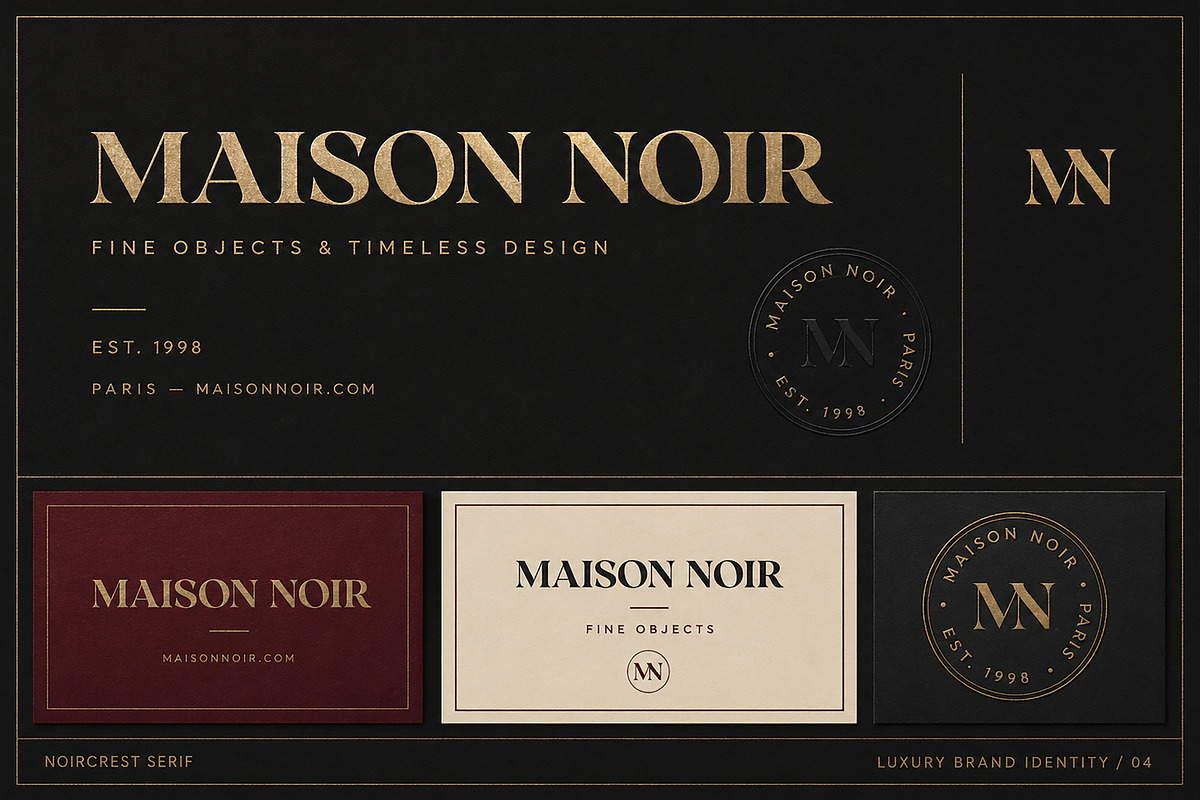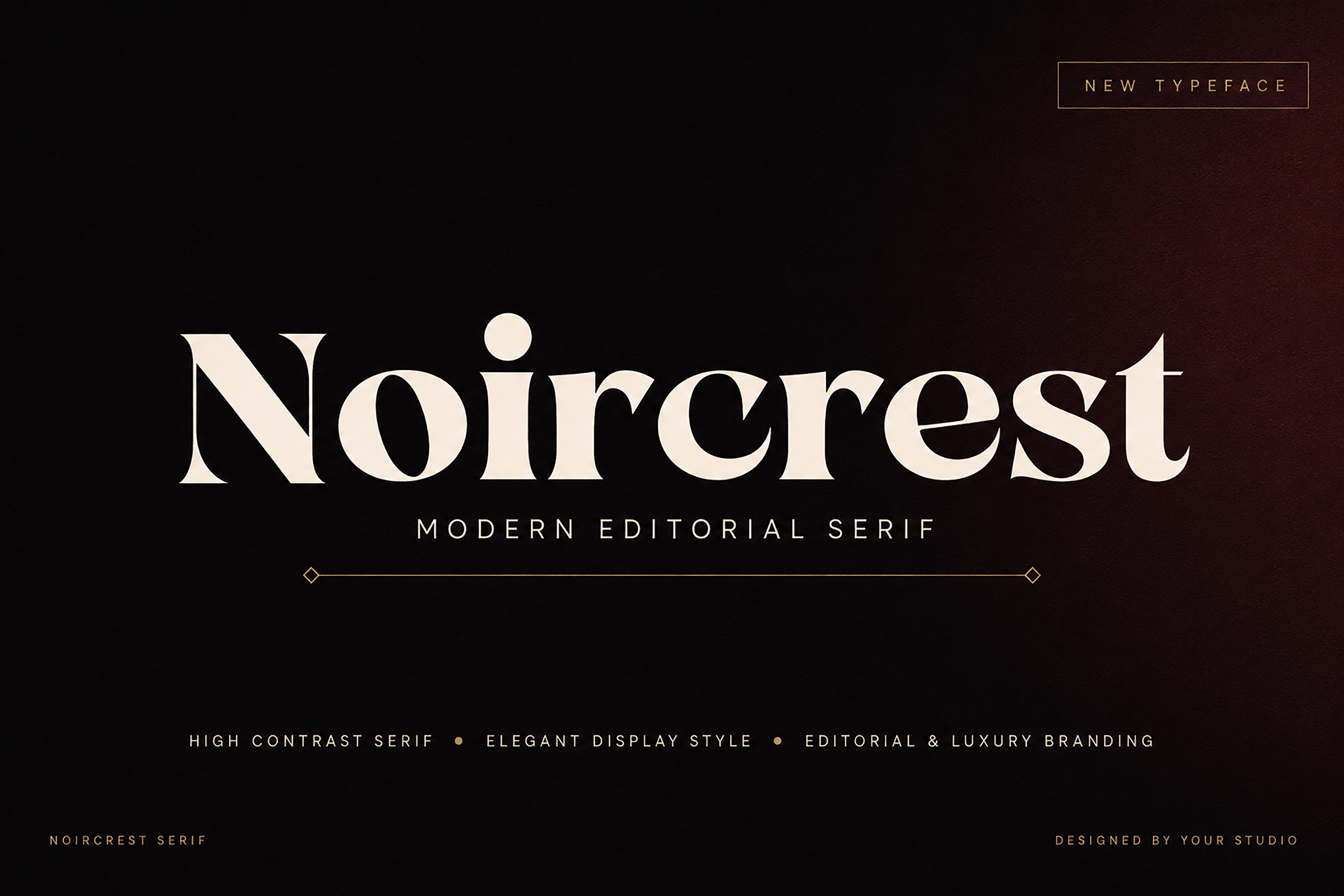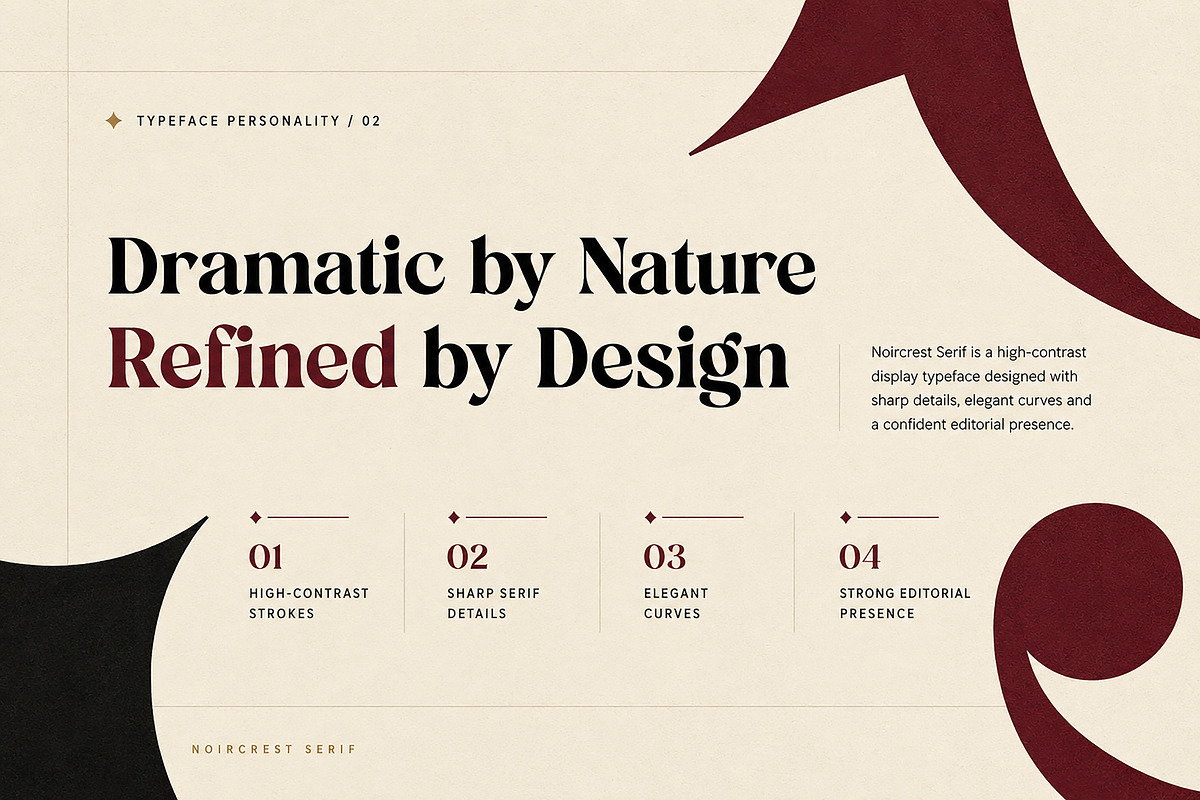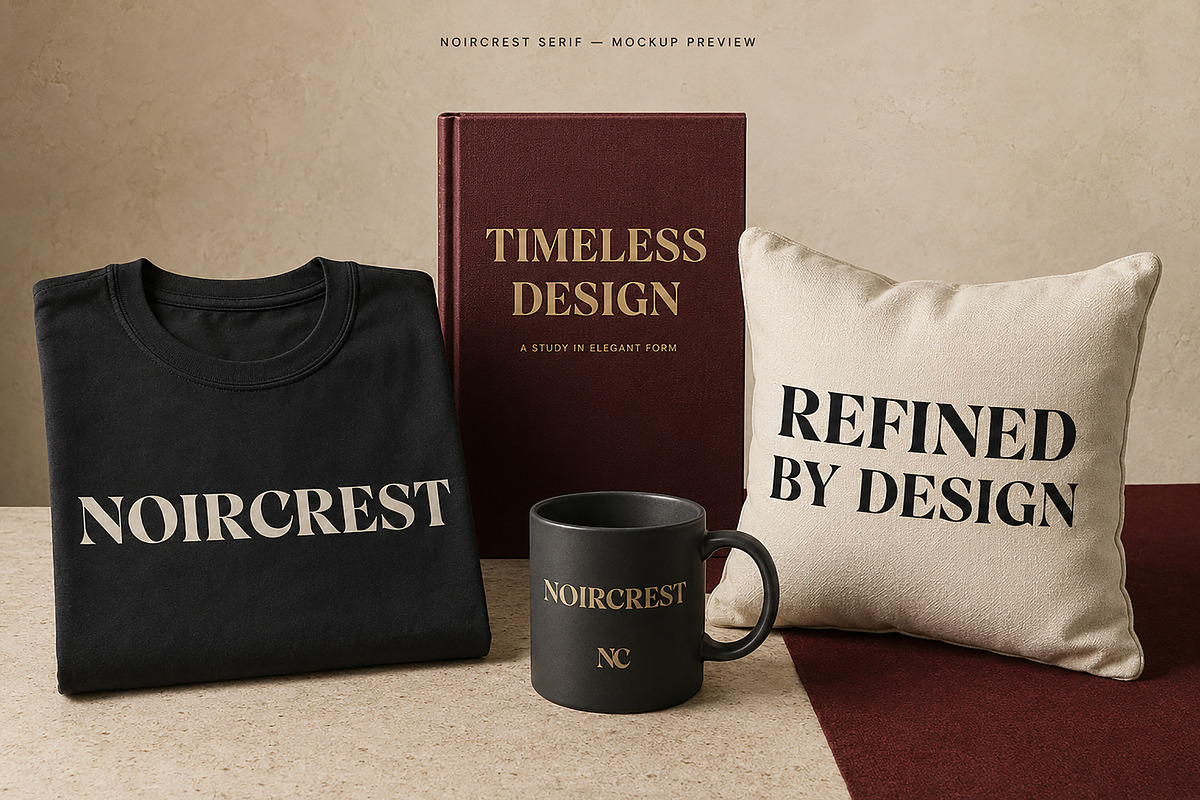
Noircrest Serif – Luxury Typeface
Noircrest Serif – Luxury Editorial Typeface
Short Description
Noircrest Serif is an elegant high-contrast display typeface featuring sharp serifs, refined curves, and a confident editorial character. Designed for luxury branding, fashion titles, magazines, packaging, logos, and sophisticated creative projects.
Introducing Noircrest Serif, a refined display typeface created to bring elegance, drama, and a premium personality to your designs.
Its striking high-contrast strokes, sharp serif details, and graceful curves create a distinctive visual style inspired by luxury fashion and modern editorial design. Noircrest works beautifully in large headlines, sophisticated wordmarks, magazine covers, boutique identities, packaging, invitations, and advertising campaigns.
Whether you are developing a luxury brand, creating an elegant publication, or designing memorable promotional materials, Noircrest Serif gives every word a confident and timeless presence.
Luxury logos and branding
Fashion and beauty campaigns
Magazine and editorial headlines
Book and album covers
Perfume and cosmetic packaging
Jewellery and boutique identities
Wedding invitations
Posters and advertisements
Apparel and merchandise
Website headers
Creative presentations
Typeface Highlights
Elegant high-contrast serif style
Sharp and distinctive serif details
Refined curves and graceful proportions
Strong editorial personality
Excellent for large display typography
Clean and timeless appearance